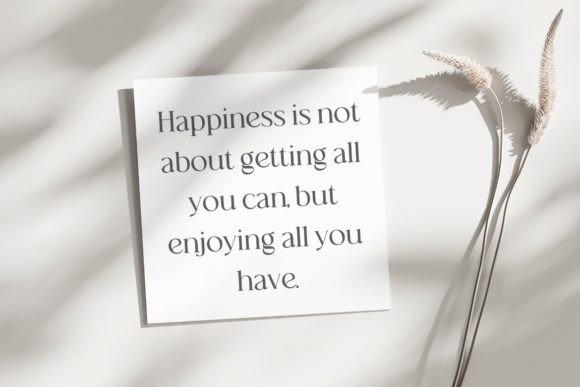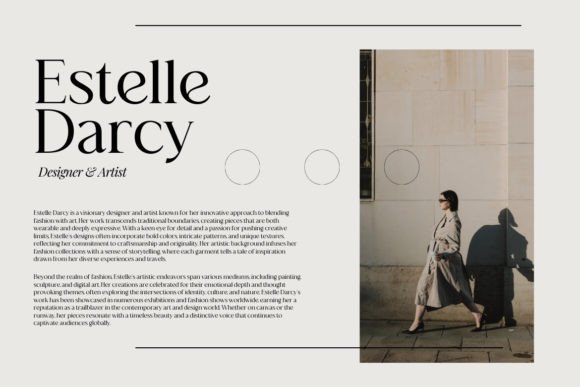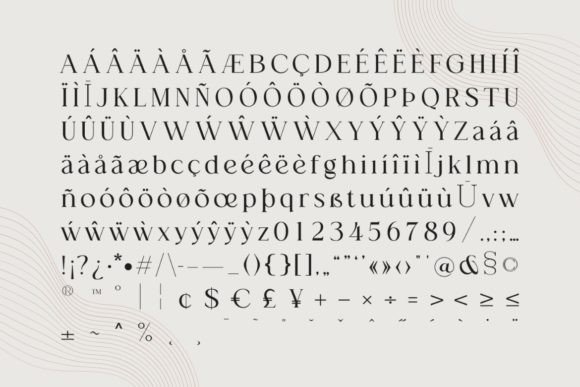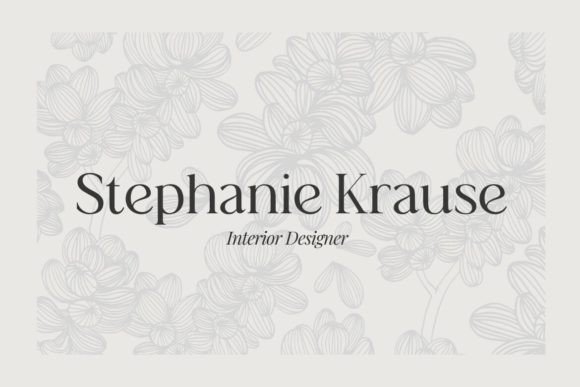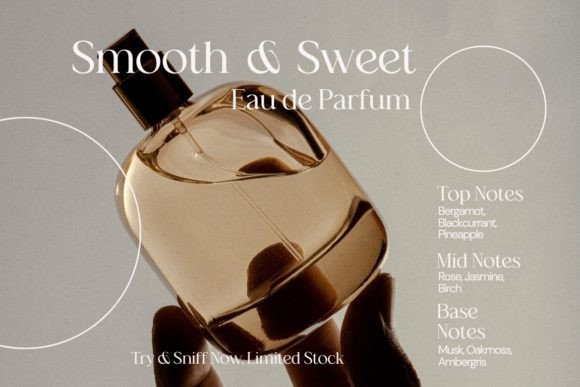
Introduction to La Segar Font
As a designer, there’s nothing quite like the thrill of bringing a creative project to life. It’s that moment when all the pieces come together, and you see your vision take shape. For me, it’s often the typography that makes or breaks the design. The right font can elevate an entire brand, while the wrong one can leave it feeling flat. That’s why I’m excited to introduce you to La Segar Font, a stunning modern serif font that’s sure to take your designs to the next level.
With its elegant style and high-quality design, La Segar Font is the perfect addition to any designer’s toolkit. Whether you’re working on a branding project, creating a logo, or designing a magazine spread, this versatile font is sure to impress. And the best part? La Segar Font is available for free download, making it an invaluable design resource for creatives on a budget.
Key Features of La Segar Font
- High-quality, professional font suitable for various creative projects, including logos, branding, and digital design.
- Includes a range of glyphs and characters, including uppercase and lowercase letters, numbers, and punctuation marks.
- Designed with a modern and elegant aesthetic, making it perfect for high-end creative projects and branding materials.
Honest Review: La Segar Font
I recently came across the La Segar Font while searching for high-quality design resources for my next creative project. I was excited to try it out and see if it met my expectations.
- ✨ The La Segar Font has a clean and modern design aesthetic that works well for a variety of creative projects.
- ✨ The font includes a transparent background, making it easy to use in complex design compositions.
- ⚠️ The font is not available in as many font weights and styles as some other high-end fonts.
- ⚠️ The La Segar Font may not be the best choice for projects that require a lot of customization or flexibility.
Overall, I’m impressed with the La Segar Font. While it may have some limitations, it’s a great free design resource that can add a lot of value to your creative project. If you’re looking for a high-quality font that’s easy to use, the La Segar Font is definitely worth checking out.
La Segar Font
La Segar Font is a high-quality, free design resource ideal for creative projects. This versatile font features a transparent background, making it perfect for overlaying on images or using as a standalone element.
Tips for Getting the Most Out of La Segar Font
1. Experiment with different font sizes and colors to achieve the desired effect.
2. Use La Segar Font in combination with other design elements to create a visually appealing design.
3. Take advantage of the font’s transparent background to create a sense of depth and layering.
La Segar Font is ideal for:
1. Social media graphics and advertisements.
2. Blog posts and articles.
3. Infographics and data visualizations.
Alternatives to La Segar Font
Noto Sans is a high-quality, sans-serif font designed for clarity and readability. It’s perfect for creative projects that require a clean and professional design. With a transparent background, it’s ideal for backgrounds and titles. Compared to La Segar Font, Noto Sans has a more modern and minimalist feel, making it suitable for a wide range of design applications.
Lato is a popular, free download font that’s ideal for design projects requiring a high-quality, sans-serif font. It’s particularly suitable for titles and headings, thanks to its clear and readable design. When compared to La Segar Font, Lato has a more elegant and refined feel, making it perfect for creative projects that require sophistication and style.